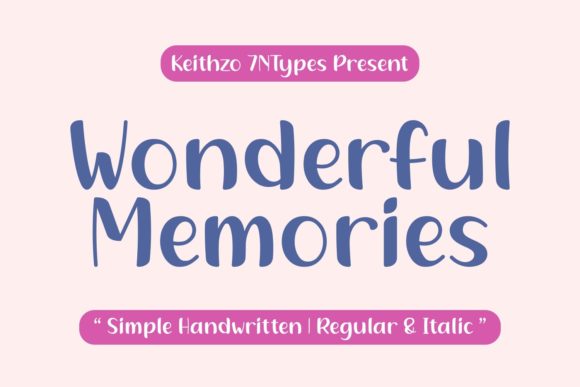
Introducing Wonderful Memories Font: A Journey Through Enchantment and Grace
In the realm of digital expression, typography reigns supreme. It's the art of weaving words into visual symphonies, captivating the hearts and minds of your audience. And when it comes to script fonts, few can match the allure of Wonderful Memories.
Crafted with meticulous care and a keen eye for elegance, Wonderful Memories is more than just a font; it's an experience. Each letter dances across the screen like a whisper from a distant dream, carrying with it a sense of wonder and nostalgia.
Picture this: you're a modern-day scribe, pouring your heart and soul into a heartfelt letter, a captivating social media post, or an unforgettable brand identity. As your fingers dance across the keyboard, Wonderful Memories transforms your words into an ethereal tapestry, leaving an indelible mark on the hearts of your readers.
With its graceful curves and enchanting flourishes, Wonderful Memories is the perfect font for adding a touch of magic to your creative endeavors. Whether you're designing logos, crafting wedding invitations, or creating eye-catching social media graphics, this font will elevate your work to new heights.
So, dear seekers of beauty and enchantment, let Wonderful Memories be your guide. Dive into a world where imagination takes flight, and your creative visions come to life. Embrace the power of this extraordinary script font and witness the transformation of your words into timeless works of art.